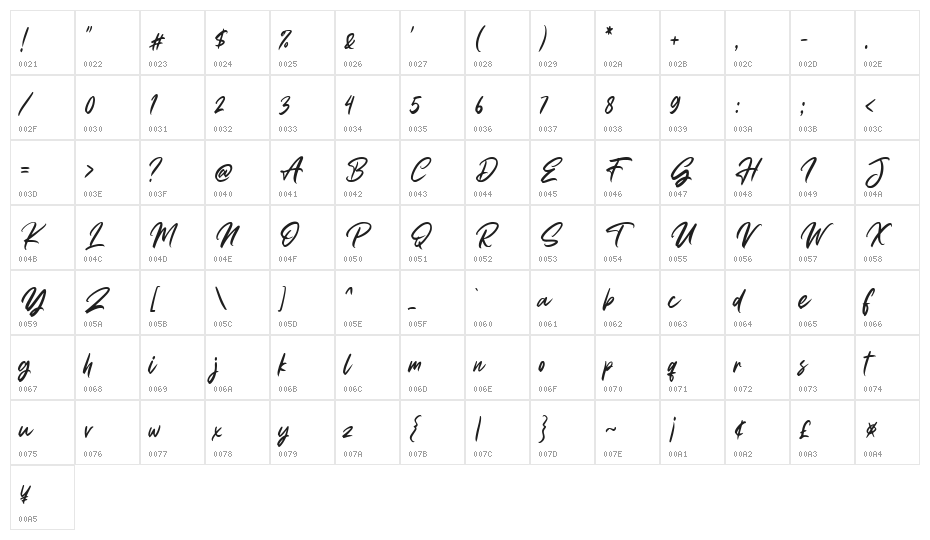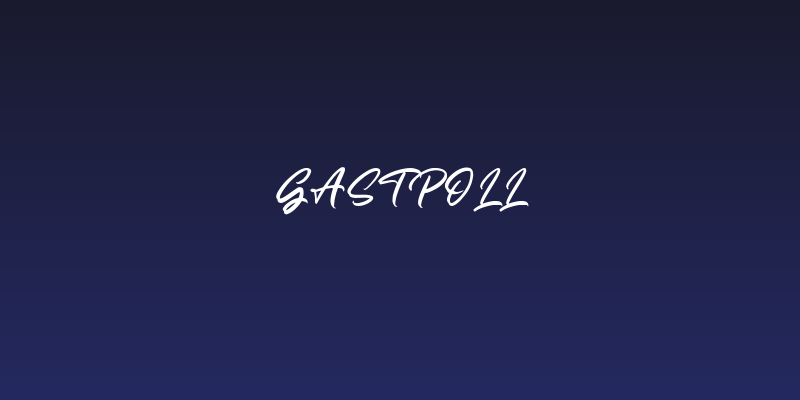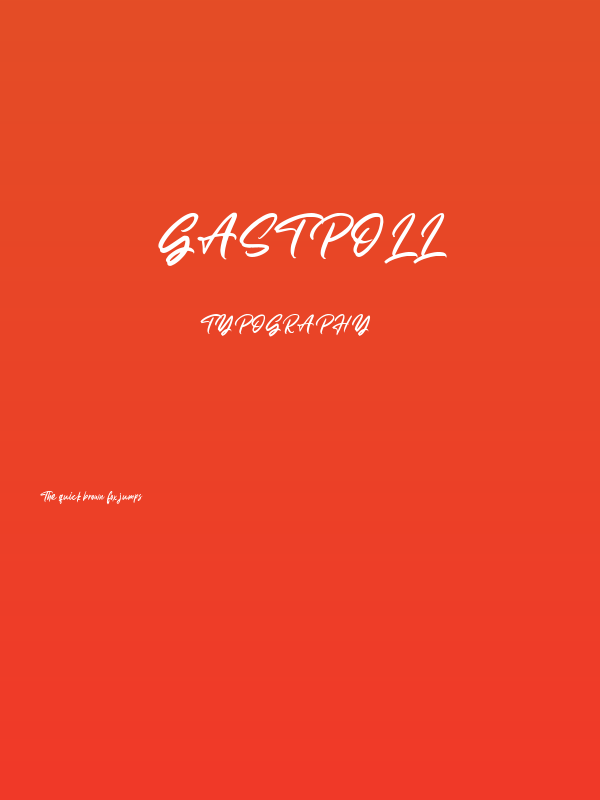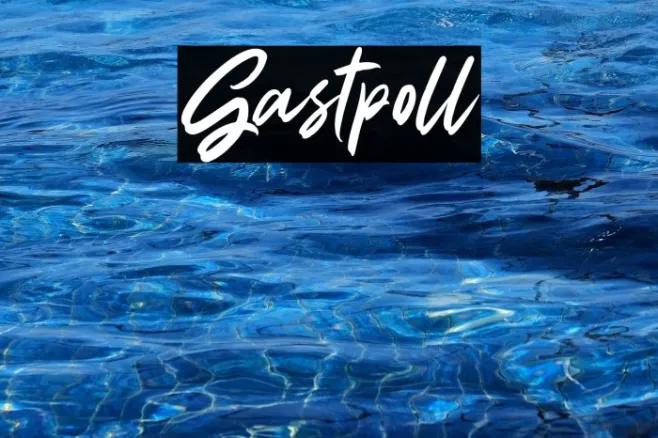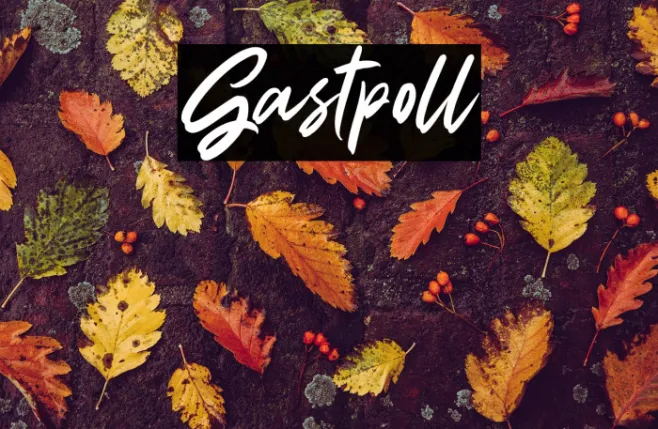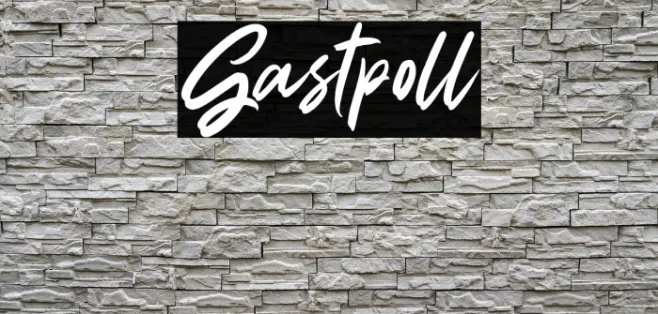
Gastpoll Font
Gastpoll Description
This font features a dynamic and expressive script style, characterized by its fluid and cursive letterforms. The strokes are smooth and connected, giving it a handwritten appearance that is both elegant and casual. The uppercase letters are bold and slightly slanted, while the lowercase letters maintain a consistent flow with a slight inclination. The numerals and special characters are designed to complement the overall script style, ensuring a cohesive look across all characters. This font's lively and personal touch makes it suitable for creative and informal applications.
| Proposed Projects | Ideal for wedding invitations, greeting cards, logos, and branding materials that require a personal and elegant touch. |